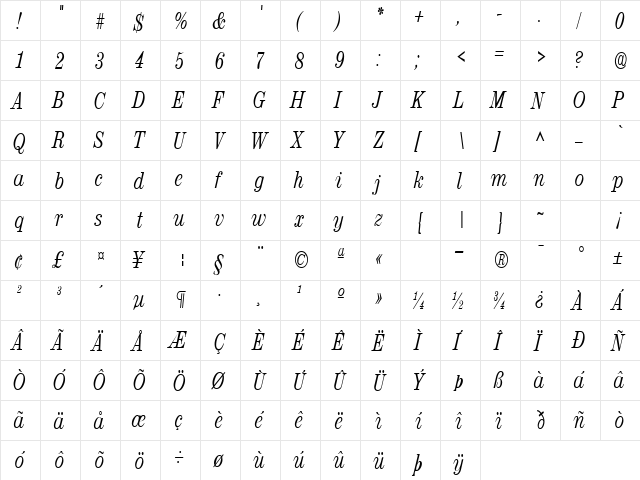
GE Esmeralda Regular
Design Context for GE Esmeralda Typeface
GE Esmeralda takes a measured approach to typography — its balanced proportions and neutral character make it a reliable workhorse for both digital and print work.